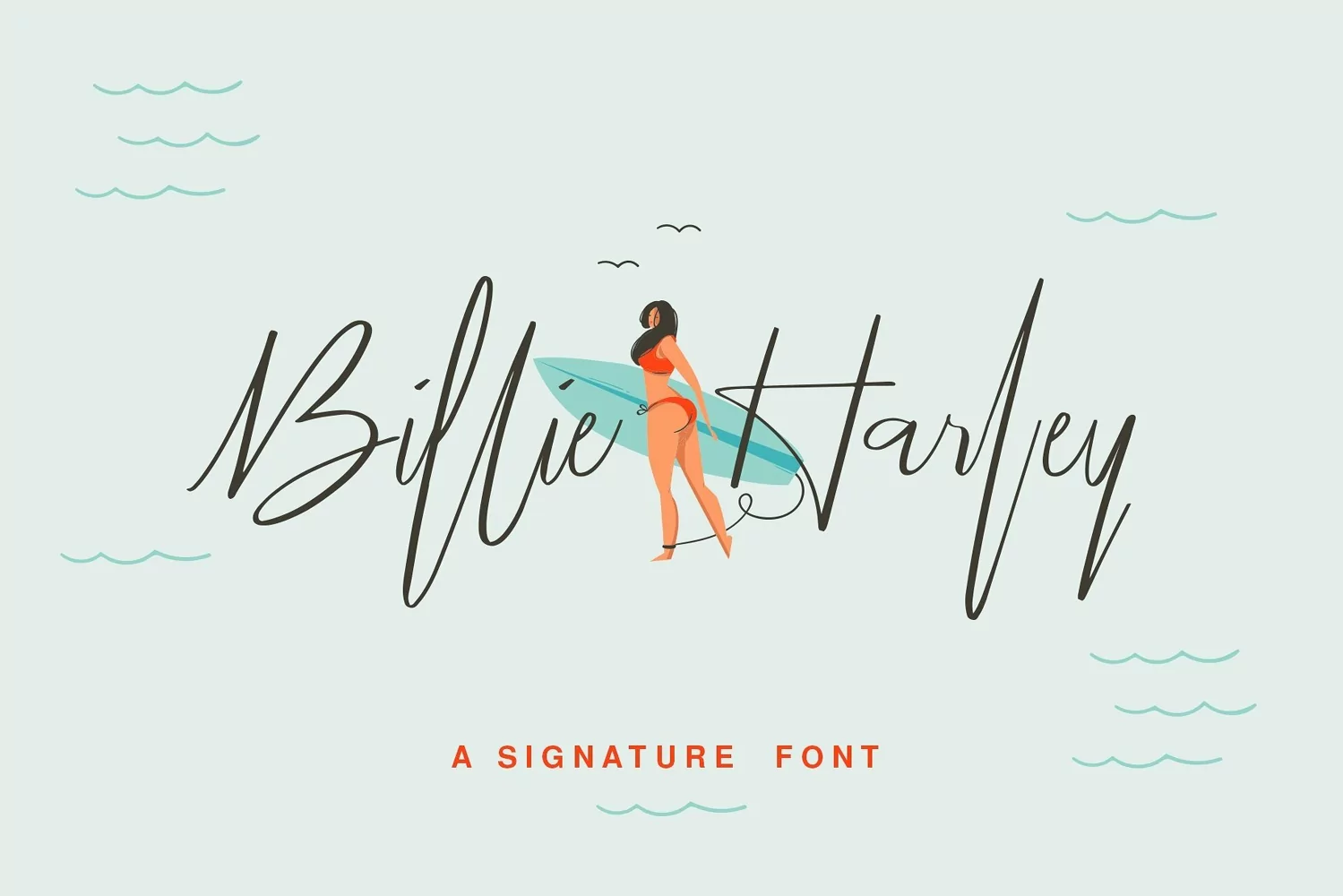
Billie Harley is a signature font with a slender and chic feeling. The enticingly bouncy flow of this signature font makes it the ideal choice for design projects such as fashion, weddings, blogs, branding and more. Billie Harley has 11 Glyphs consisting of uppercase, lowercase, ligatures, numerals and punctuation.